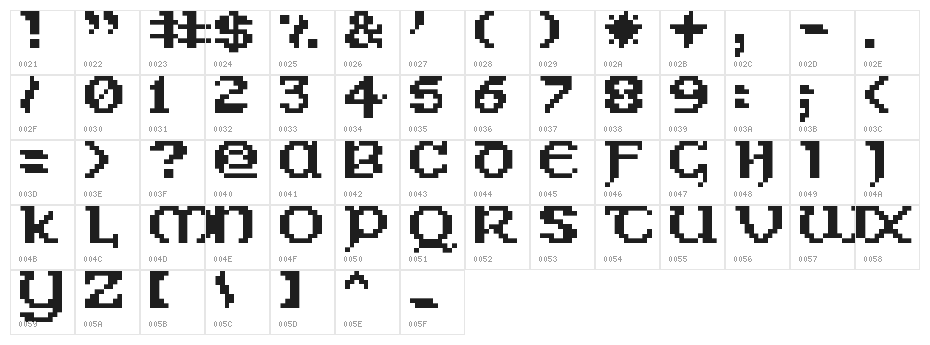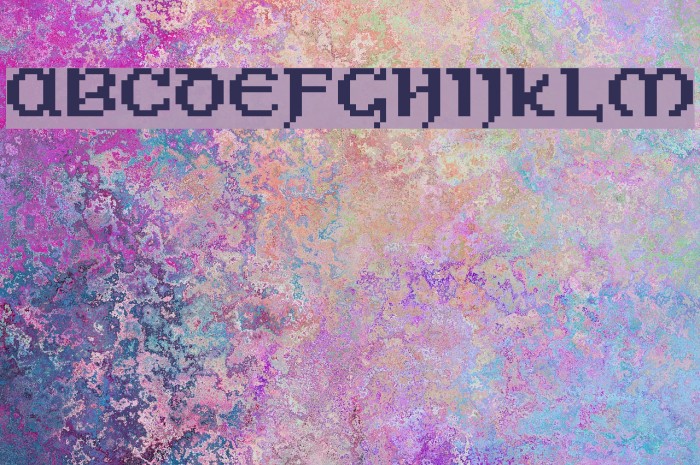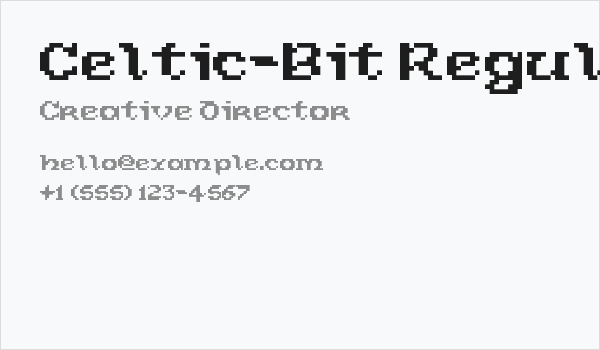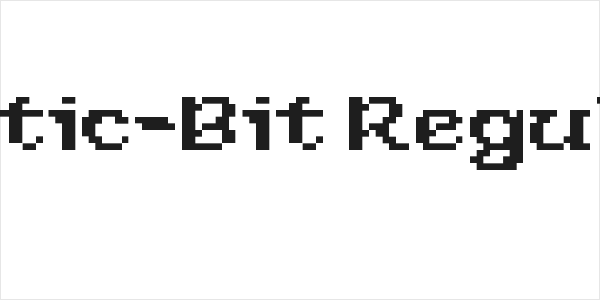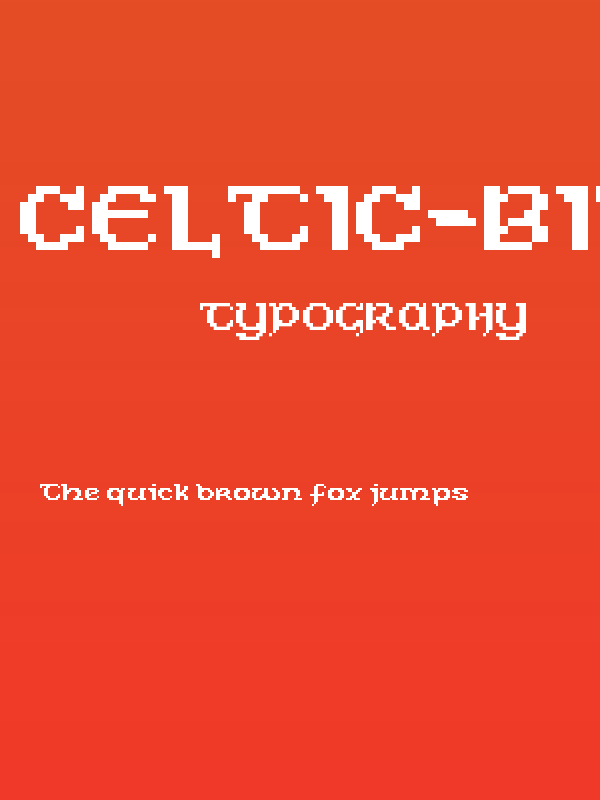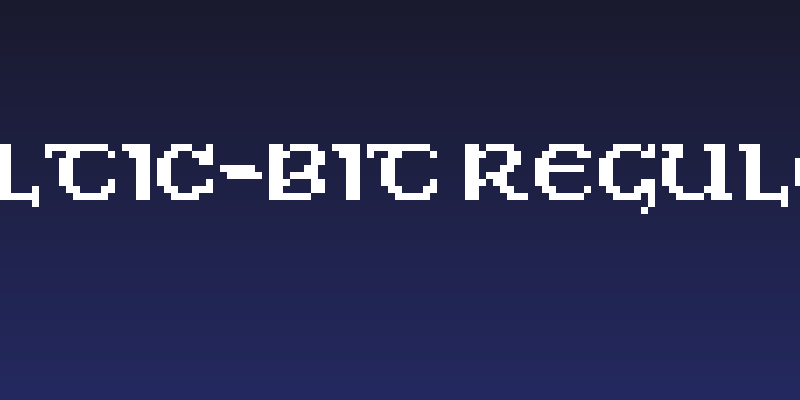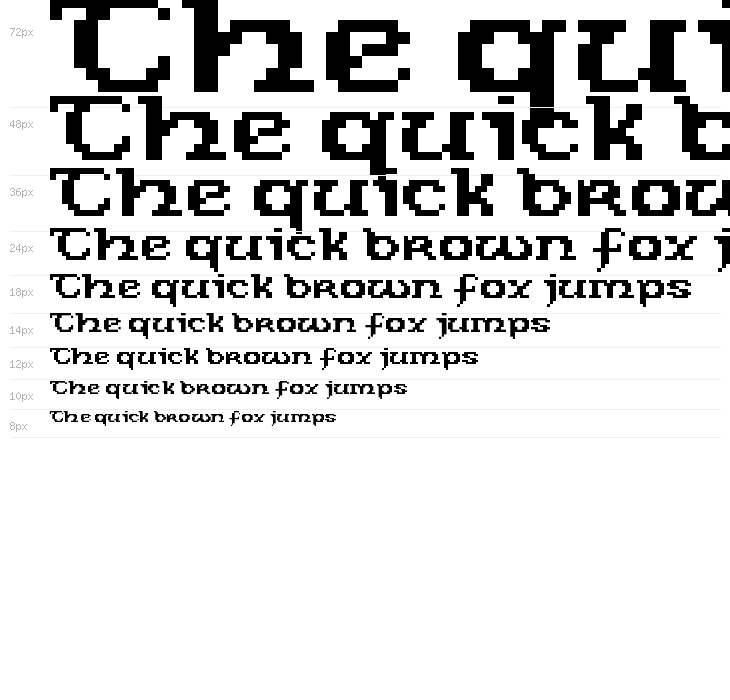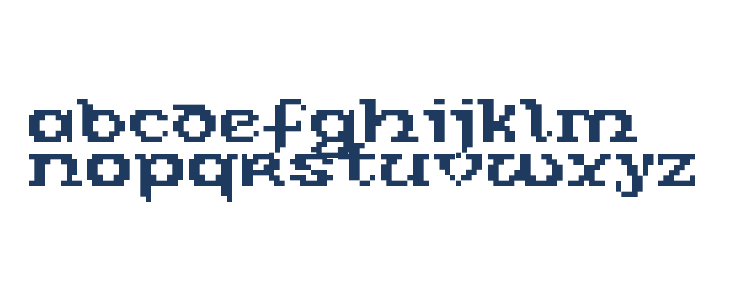
Celtic-Bit Regular Font
Celtic-Bit Regular Description
This font features a distinctive pixelated style reminiscent of early digital and video game typography. Each character is composed of blocky, square shapes, giving it a retro, 8-bit appearance. The uppercase and lowercase letters maintain a consistent height, contributing to a uniform look. The numerals and special characters follow the same pixelated design, ensuring visual coherence across all elements. This font's unique style evokes a sense of nostalgia, making it ideal for projects that aim to capture the essence of vintage digital aesthetics.
Overall StyleVintage
Use CaseLogos, Headlines, Digital Art
Proposed ProjectsIdeal for video game design, retro-themed posters, digital art projects, and nostalgic branding.